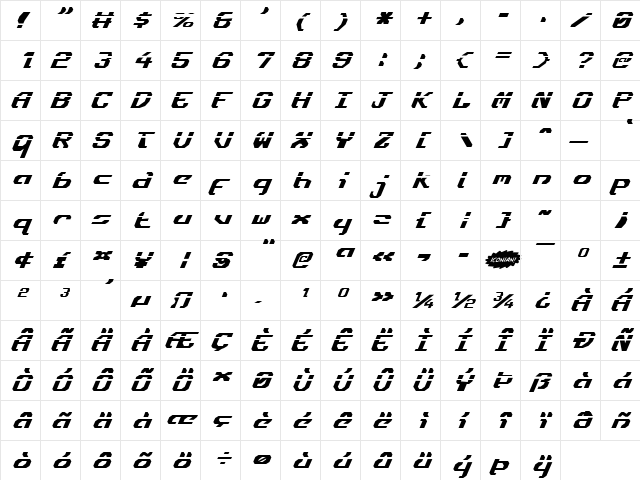
Ensign Flandry Laser Italic Laser Italic
Design Context for Ensign Flandry Laser Italic Typeface
Ensign Flandry Laser Italic is a composed and adaptable typeface that performs quietly and consistently across a wide range of design contexts. The slanted form adds forward momentum and visual energy.